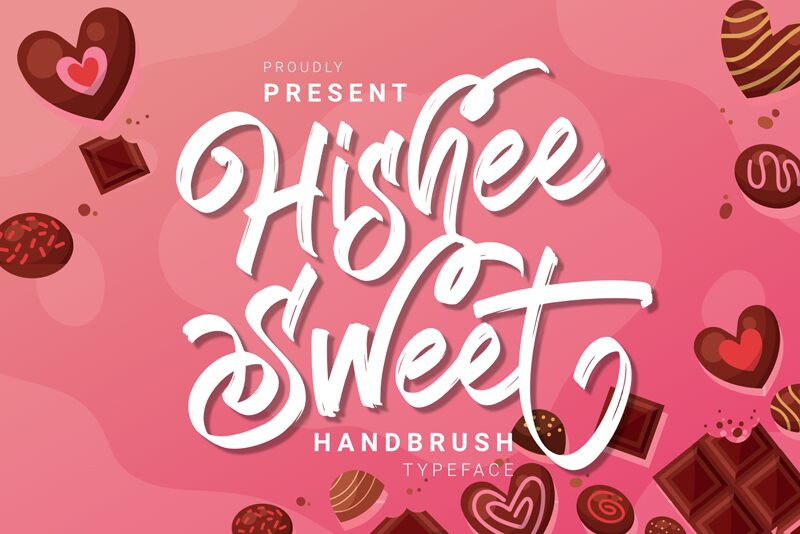
Hishee Sweet
Hishee Sweet font is a curly, script display font from DumadiStyle, in a casual, organic modern calligraphic style. The letters’ smooth rounded curves give the font a contemporary appeal that’s expressive and fluid while remaining suitable for both small and large point sizes. The font balances elegance and simplicity like no other, making it perfect for countless purposes.
Use this free decorative script font for packaging design projects (cosmetics & skincare); event invitations (Christmas cards), branding design (logo collections and business cards), or themed posters and restaurant menus in addition to headlines/ titles of websites and even social media posts.